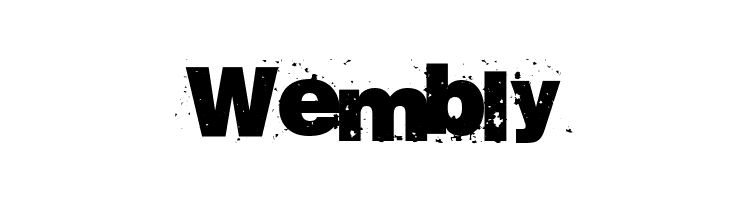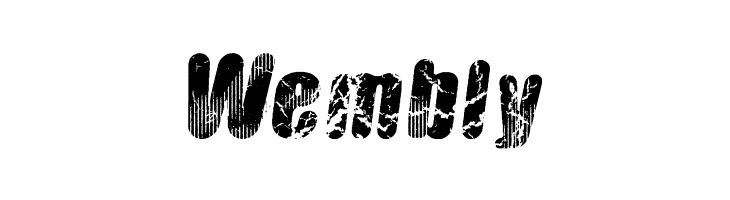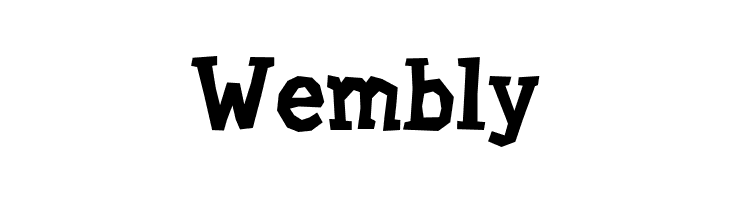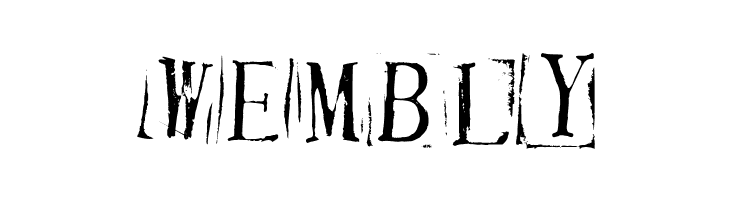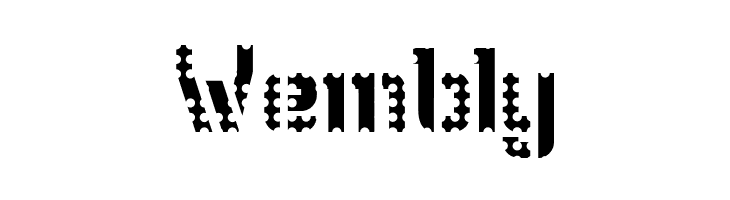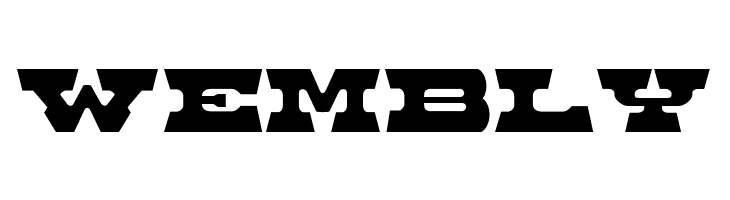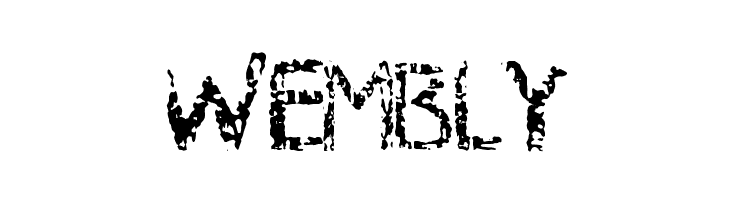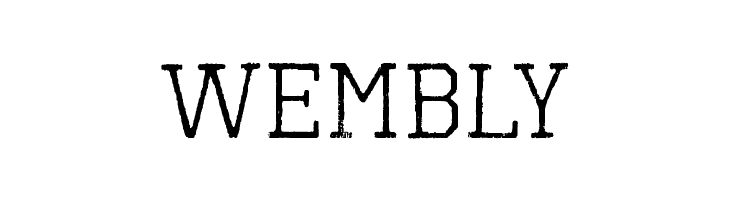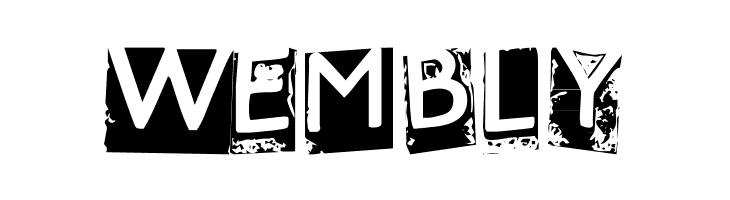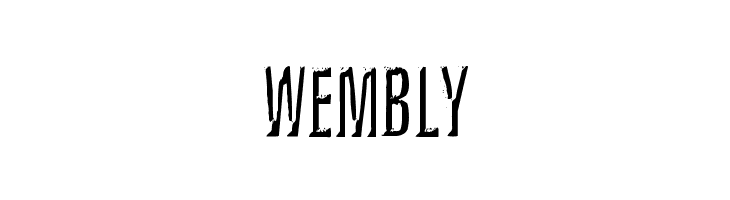
A bold, distressed font with a rugged, grunge aesthetic.
A bold, angular font with a rugged, geometric design.
A distressed, stencil-style font with a vintage, industrial aesthetic.
A bold, perforated font with an industrial, modern aesthetic.
A bold, distressed font with a vintage, industrial feel.
A bold, distressed font with a vintage, industrial style.
A rugged, distressed font with a vintage industrial feel.
A bold, distressed font with a rugged, industrial style.
A bold, distressed font with a vintage, industrial feel.
A bold, distressed font with a grunge aesthetic and rugged texture.
A bold, industrial stencil font with unique punched-out sections.
A bold, 3D, condensed font with an industrial and futuristic style.
A distressed, grunge-style font with a textured, weathered appearance.
A bold, distressed font with a grunge, corroded texture.
A bold, distressed font with a gritty, urban aesthetic.
A bold, stencil-like font with high contrast and a modern, industrial style.
A bold, industrial font with a geometric, stencil-like design.
A bold, stencil-style font with a futuristic and industrial aesthetic.
A bold, distressed stencil-style font with rugged, uneven characters.
A bold, stencil-style font with high contrast and geometric shapes.
A rugged, stencil-style font with jagged edges and a bold presence.